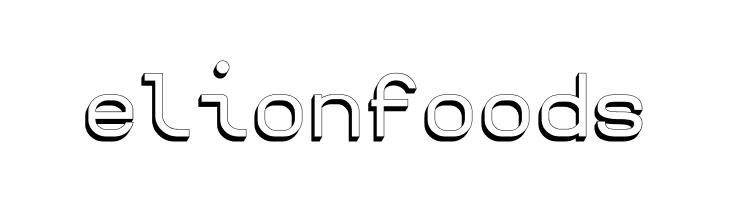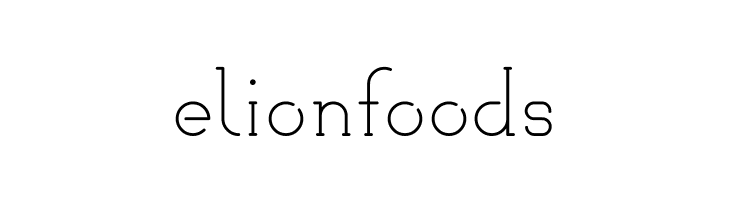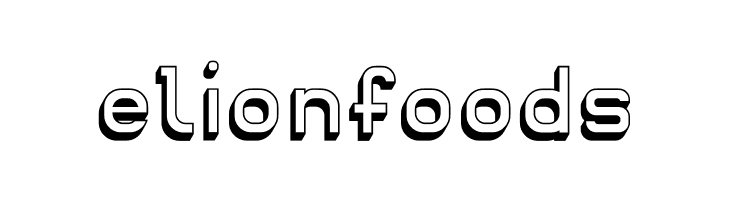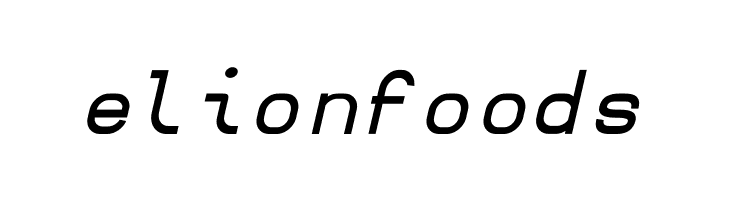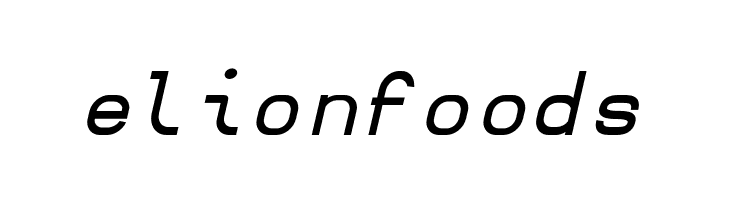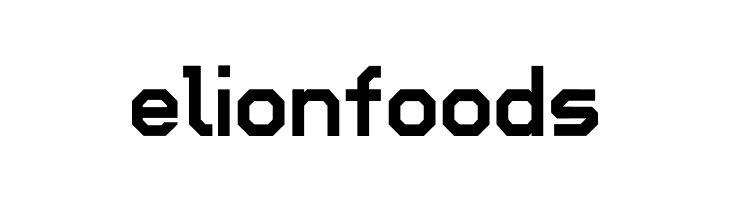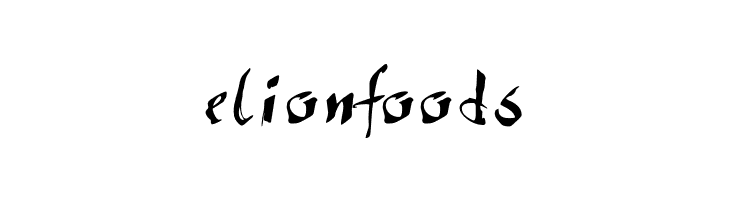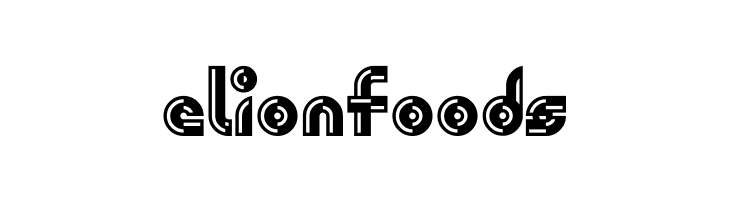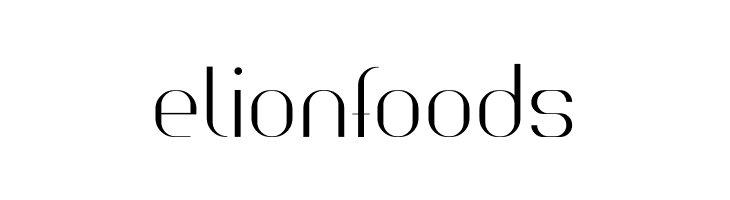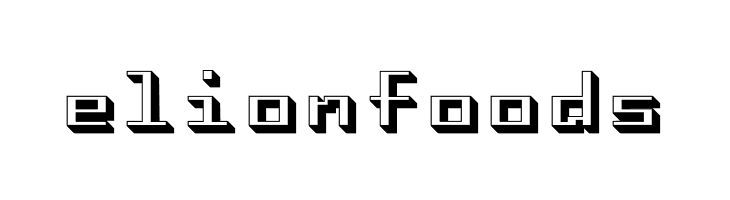
College Sans Font
Thor Christopher Arisland - www.tcarisland.com
A bold, geometric font with a modern and industrial aesthetic.
Borgen Font
Font by Thor Christopher Arisland
A modern geometric sans-serif font with uniform width and clean lines.
Cardboard-Cutout Font
Thor Christopher Arisland - www.tcarisland.com
A bold, geometric font with a cutout, handmade appearance.
SolidSans Font
Thor Christopher Arisland - www.tcarisland.com
A bold, geometric sans-serif font with a modern and clean style.
Salome Font
Thor Christopher Arisland - www.tcarisland.com
A whimsical, hand-drawn font with playful and artistic characters.
Pipeline Regular Font
Font by Thor Christopher Arisland
An industrial, pipe-inspired decorative font with intricate details.
Giovanni Font
Thor Christopher Arisland - www.tcarisland.com
A bold, geometric font with decorative elements and a double-layered effect.
Solid Sans 3D Font
Thor Christopher Arisland - www.tcarisland.com
A bold, 3D sans-serif font with a modern and impactful style.
Snufkin Font
Font by Thor Christopher Arisland
A playful, bold handwritten font with a friendly and dynamic style.
Hairline Font
Font by Thor Christopher Arisland
A decorative font with a textured, intertwined ribbon-like design.
Borgen Bold Font
Thor Christopher Arisland - www.tcarisland.com
A geometric sans-serif font with a bold, modern style and consistent stroke width.
Borgen 3D Font
A bold, 3D-effect font with a modern, geometric style.
Monomod Font
Font by Thor Christopher Arisland
A modern, monospaced font with geometric shapes and rounded edges.
Sullivan Font
Thor Christopher Arisland - www.tcarisland.com
A modern, geometric font with tall, narrow characters and consistent stroke weight.
KlubKatz Font
Font by Thor Christopher Arisland
A modern, geometric font with thin lines and a clean, elegant style.
Betong Font
Thor Christopher Arisland - www.tcarisland.com
A bold, geometric stencil font with high contrast and industrial style.
Modum Font
Thor Christopher Arisland - www.tcarisland.com
A modern, geometric font with clean lines and a slightly condensed style.
16 Segments Font
A digital, segmented font inspired by classic LED displays.
16 Segments Font